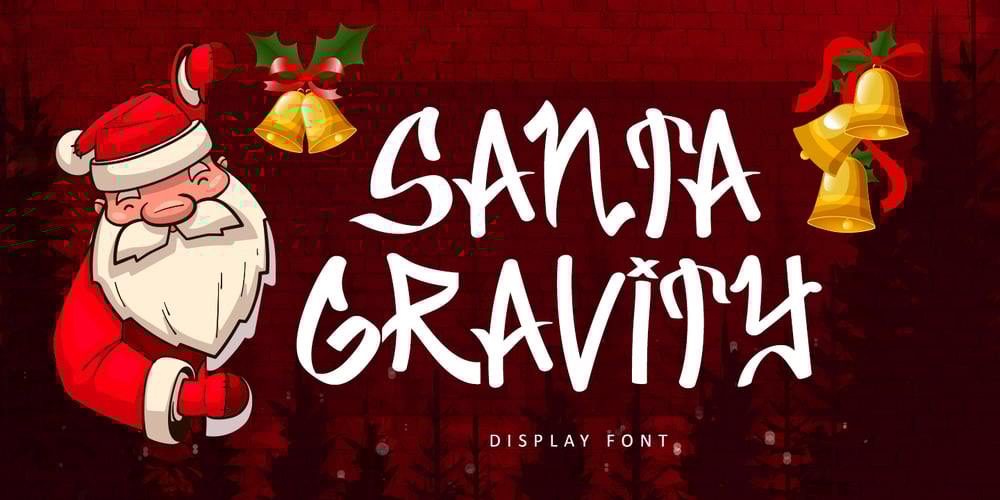
Santa Gravity Font Family was designed by Bayu Suwirya and published by Illushvara. Santa Gravity contains 1 styles and family package options. Santa Gravity is a fun display font, featuring an urban style. Fun and casual, this font is ideal for any design you wish to develop for Christmas Season!Features :Uppercase and lowercaseNumbersSymbolsMultilingual AccentIf you have any question, don’t hesitate to contact me.Happy Designing !!!Thank You